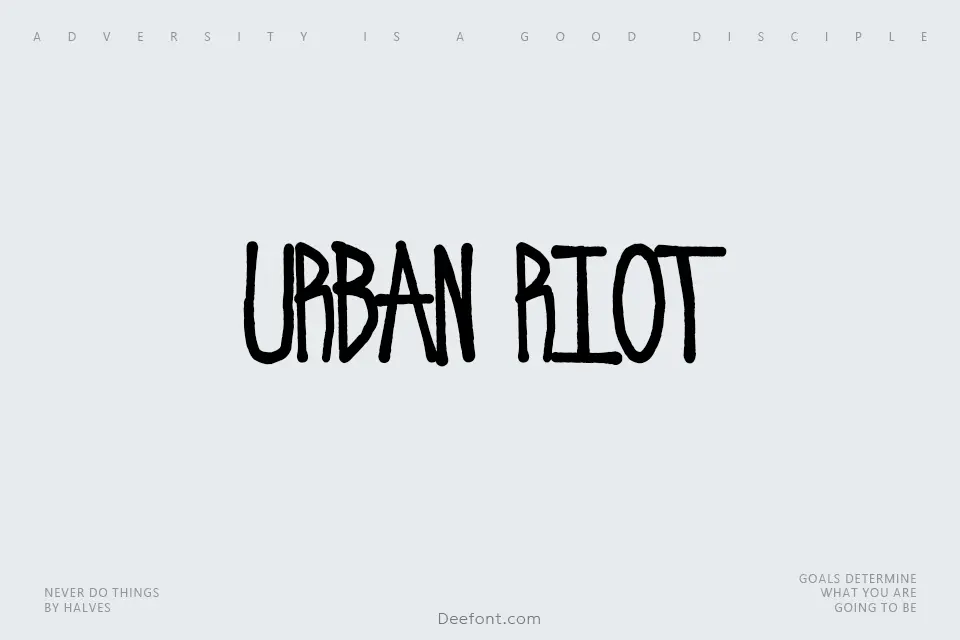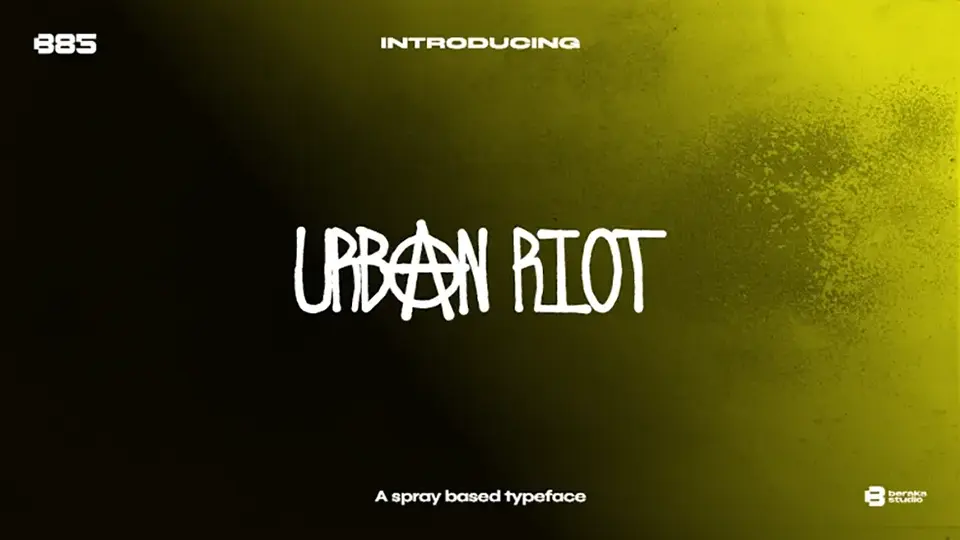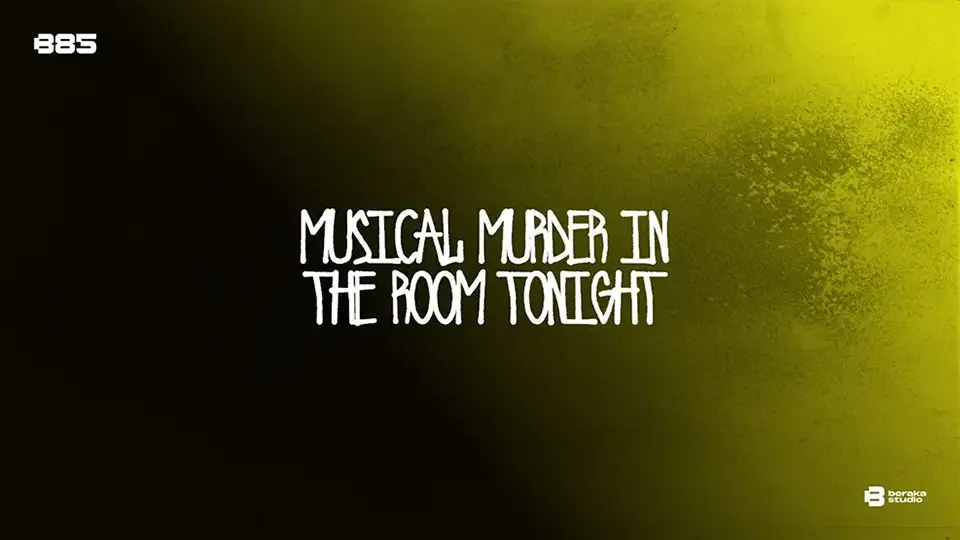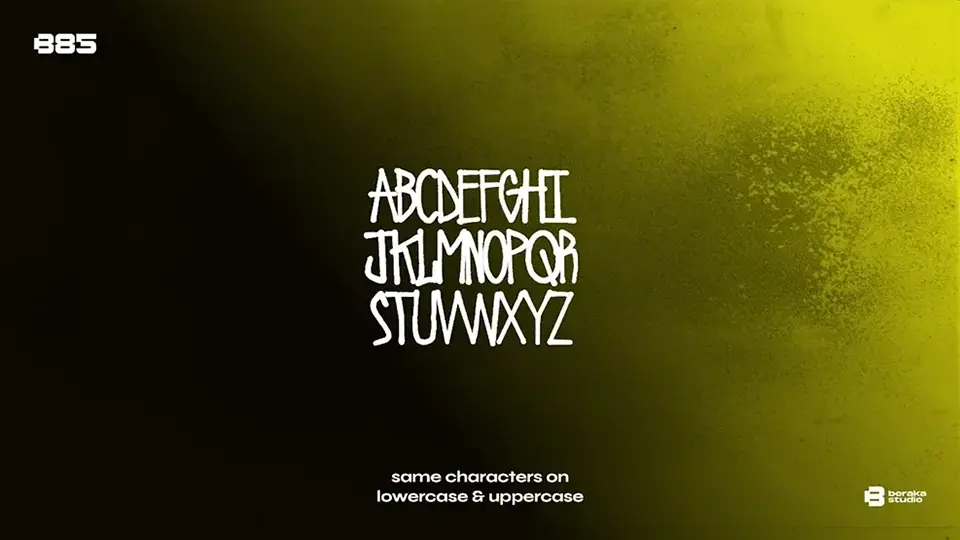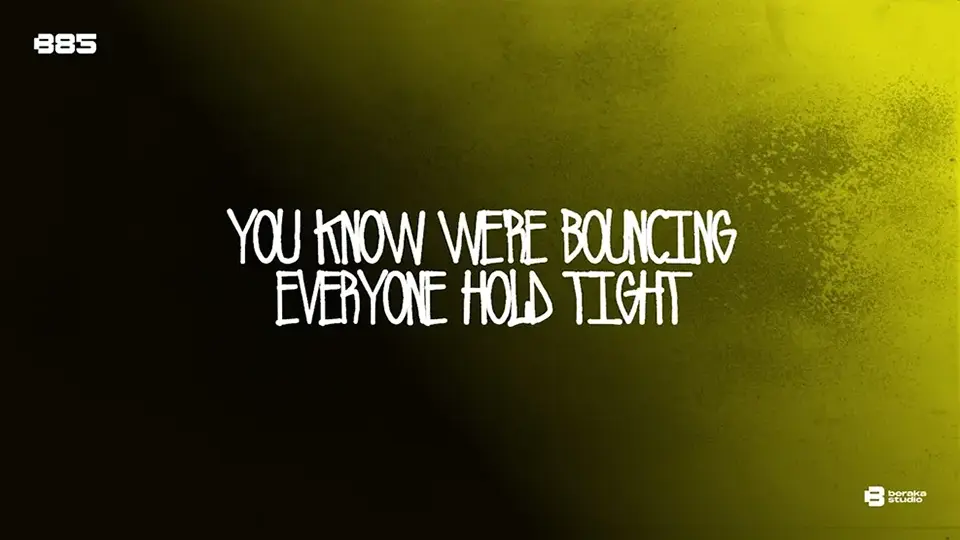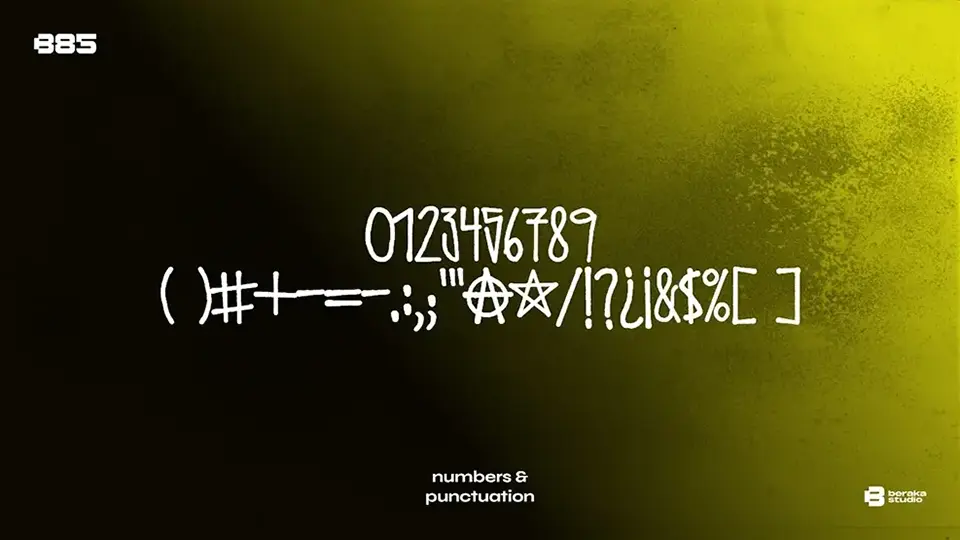
Urban Riot Font
Urban Riot is an engaging graffiti typeface that brilliantly executes the typical urban aesthetic of street art. Its condensed, bold style features a raw and edgy appearance with thick, uneven strokes that contribute to a rugged, edgy vibe. This free demo version includes only uppercase and lowercase letters, perfect for posters, logos, social media visuals, advertisements, brochures, and websites targeting creative projects requiring a strong, individualistic statement.